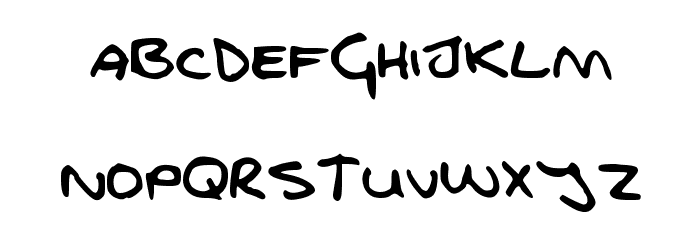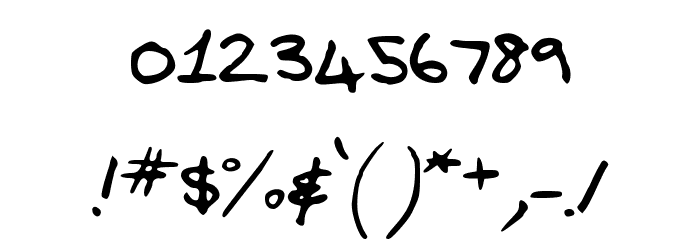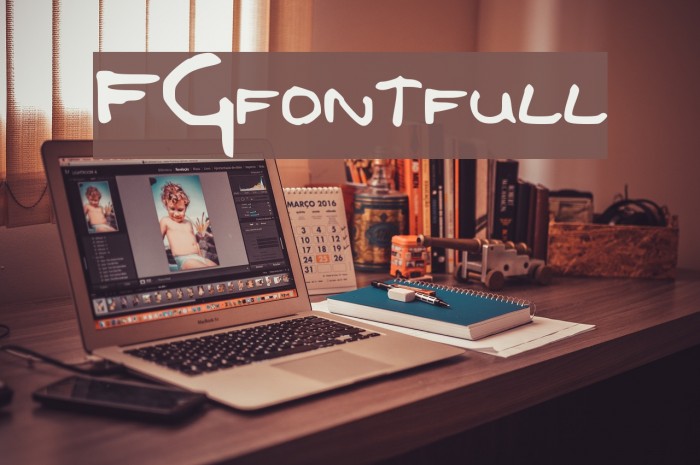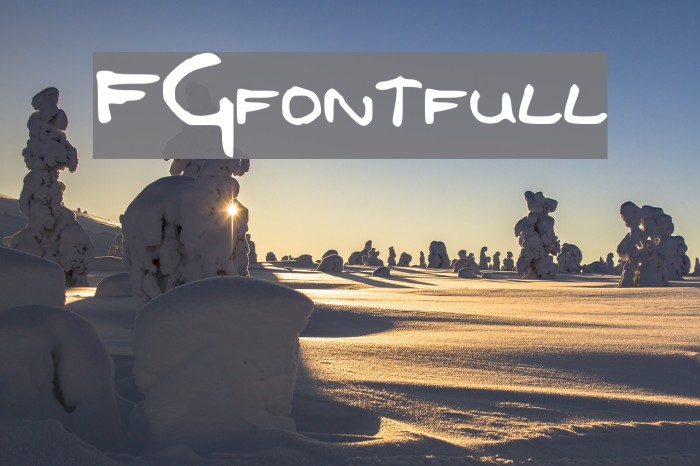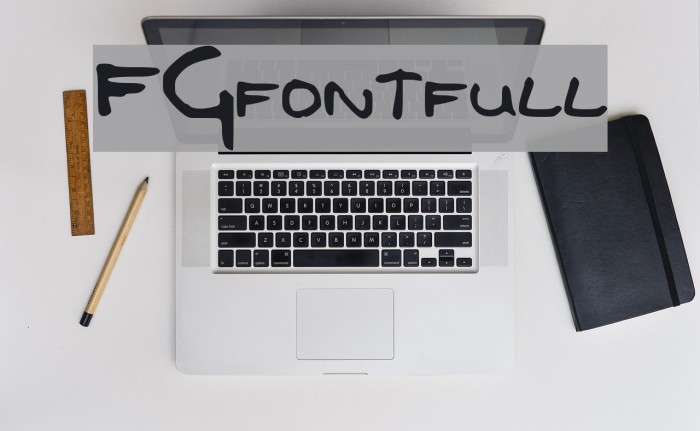
FGfontfull Font
This font exhibits a playful and energetic handwritten style, characterized by its bold and dynamic strokes. The letters have a casual, free-flowing appearance, with varying stroke widths that add a lively and spontaneous feel. The uppercase and lowercase letters are distinct yet harmonious, maintaining a consistent style throughout. The numbers and special characters follow the same energetic design, making the font versatile for various creative applications. Its informal and expressive nature makes it ideal for projects that require a personal touch.
A bold, playful handwritten font with dynamic strokes and a lively appearance.
- Proposed Projects: Ideal for greeting cards, invitations, children's books, and creative branding projects.
- Overall Style: Playful, Energetic, Casual
- Use Case: Headlines, Logos, Creative projects